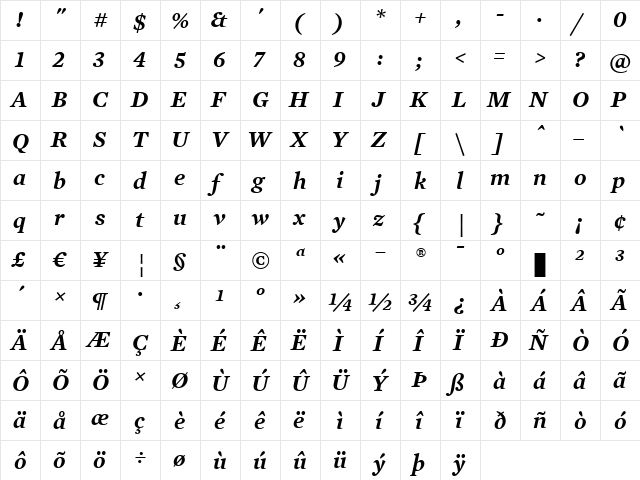
Mercury Text G3 SemiBold Italic
Design Context for Mercury Text G3 Typeface
Mercury Text G3 is a composed and adaptable typeface that performs quietly and consistently across a wide range of design contexts. The dynamic lean of this cut emphasises speed and emphasis in any layout. Its bold stroke weight gives it real presence on the page.
Pro Tip: Try Mercury Text G3 for annotation and caption copy alongside an upright companion — the contrast in angle creates a dynamic but ordered typographic system.